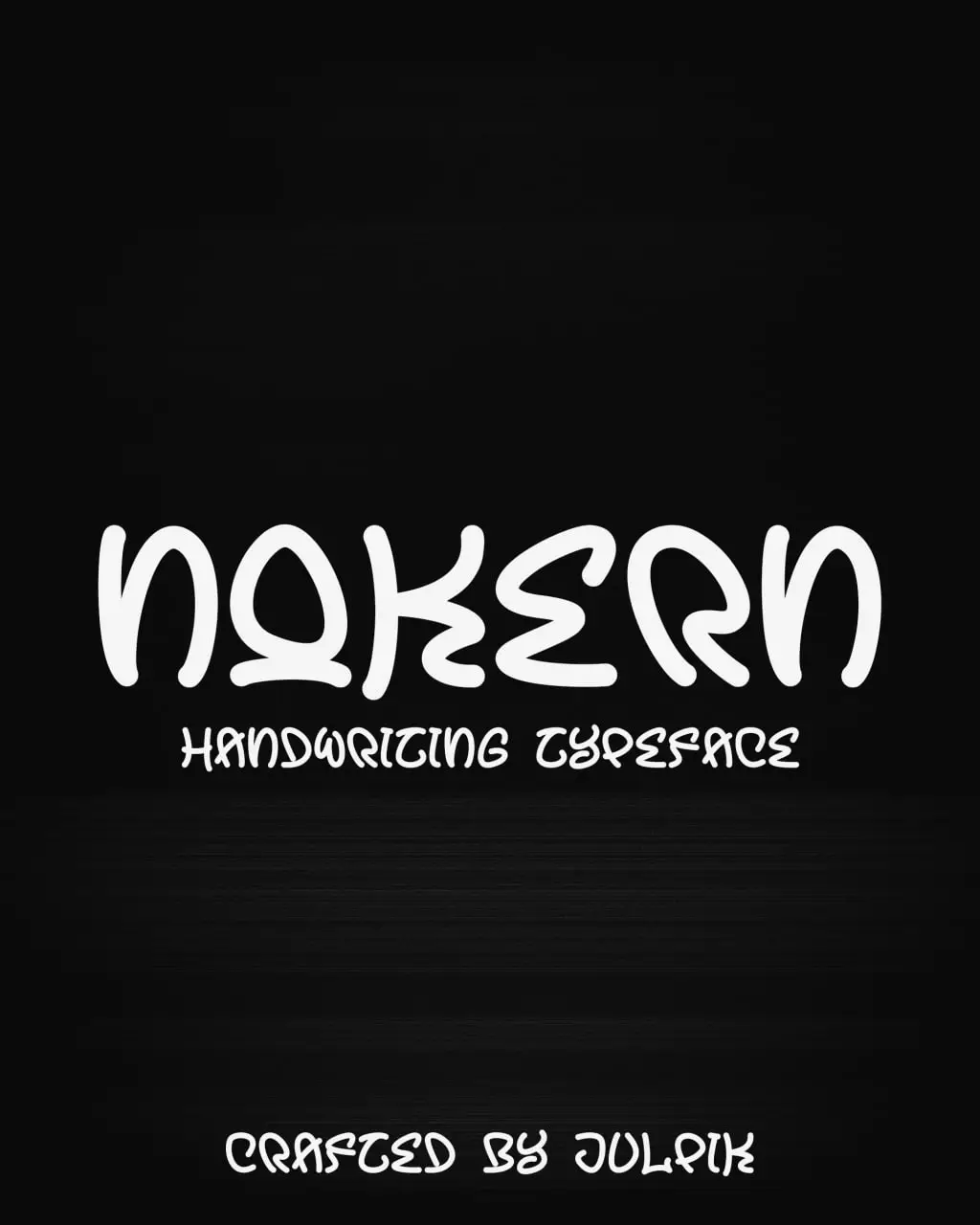
Nokern Handwriting Typeface By Julpik
The Nokern Handwriting Typeface by Julpik offers a unique and personal touch to your design projects. This font captures the essence of natural handwriting, making it perfect for a variety of applications, from branding to invitations.
• Stylish and elegant handwritten style
• Includes uppercase and lowercase letters, numbers, and punctuation
• Great for print projects such as invitations and greeting cards
• Perfect for digital designs, including websites and social media graphics